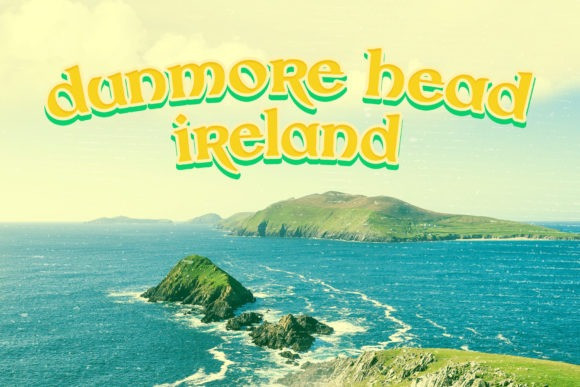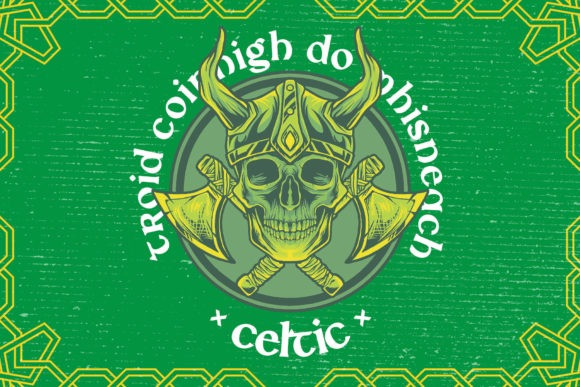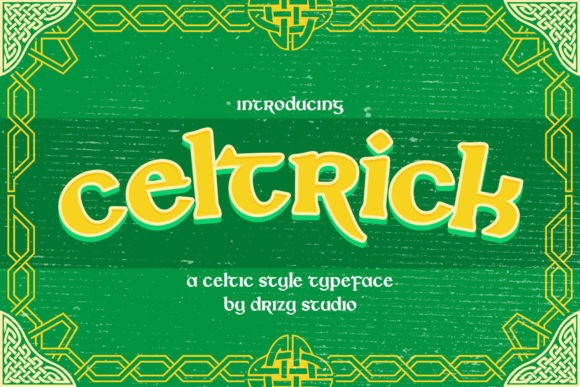
Celtrick Font
Celtrick Font adds an air of mysticism and a legendary feel to your designs. Its style will undoubtedly immerse your designs into a magical world.